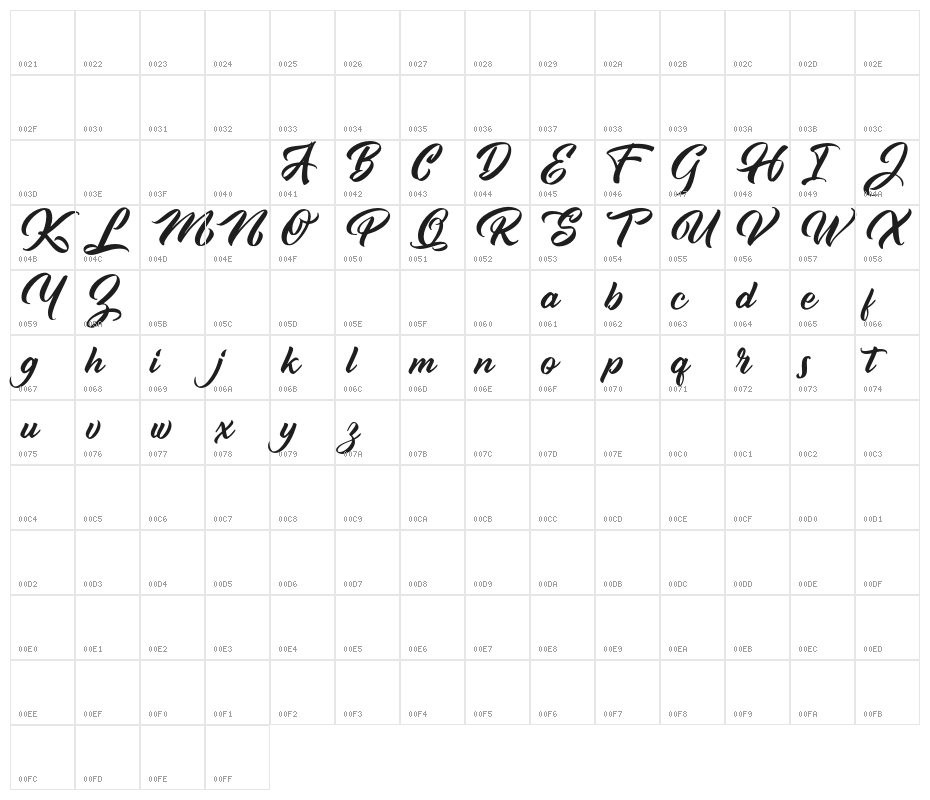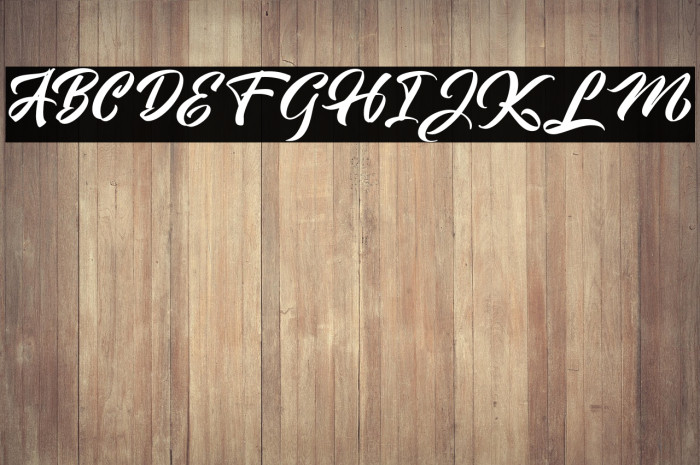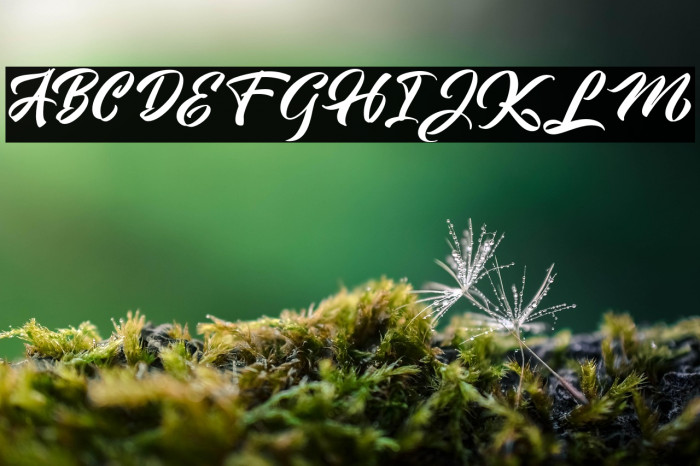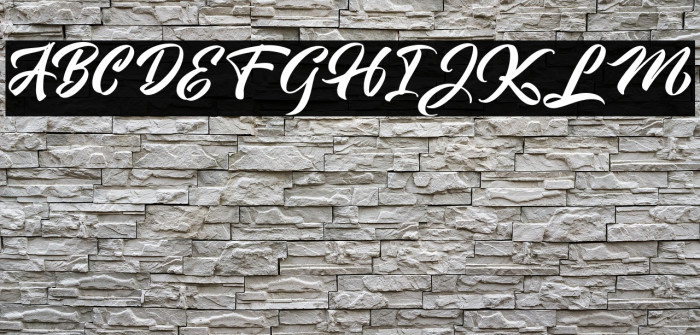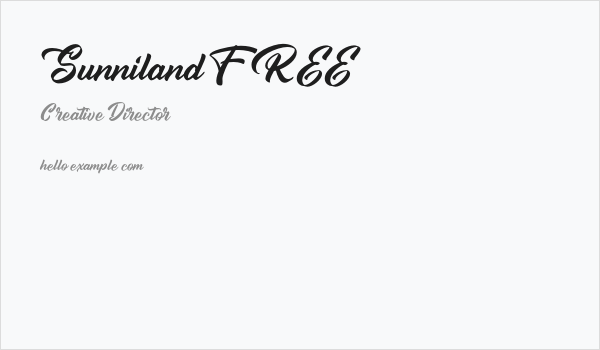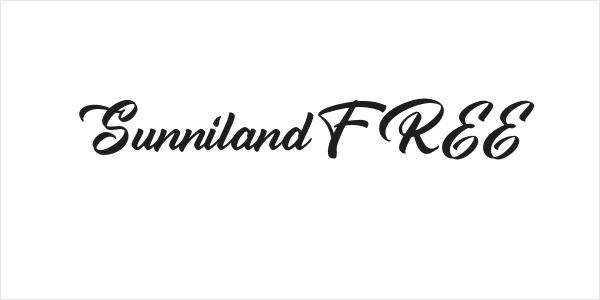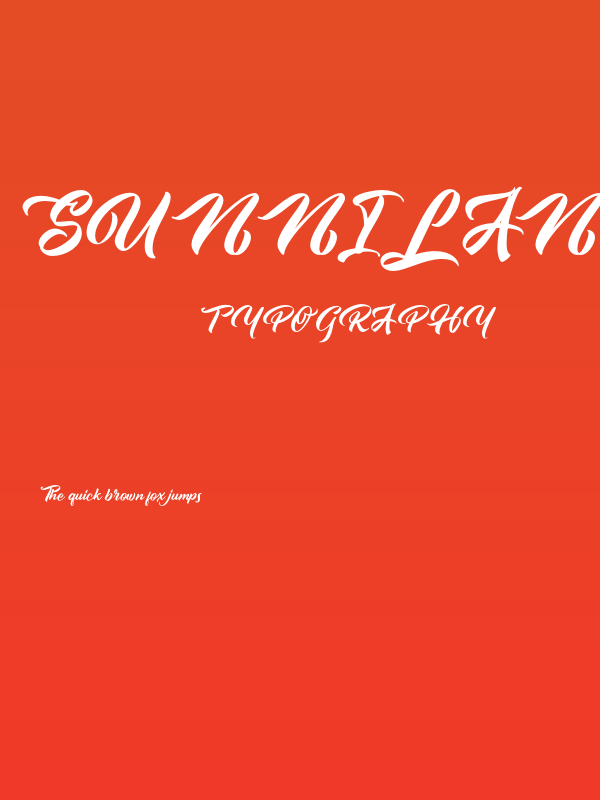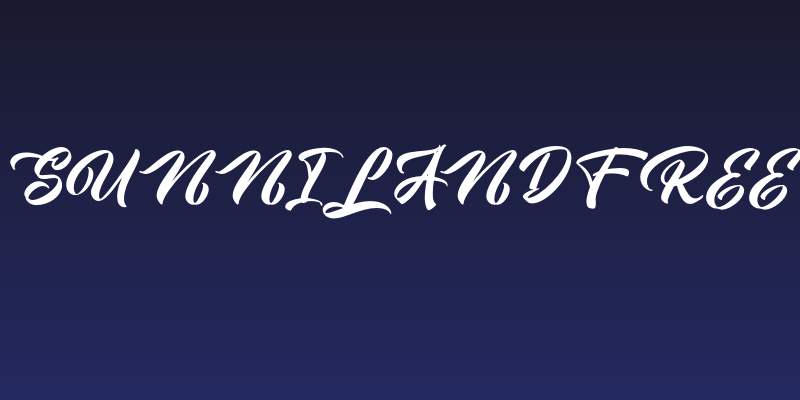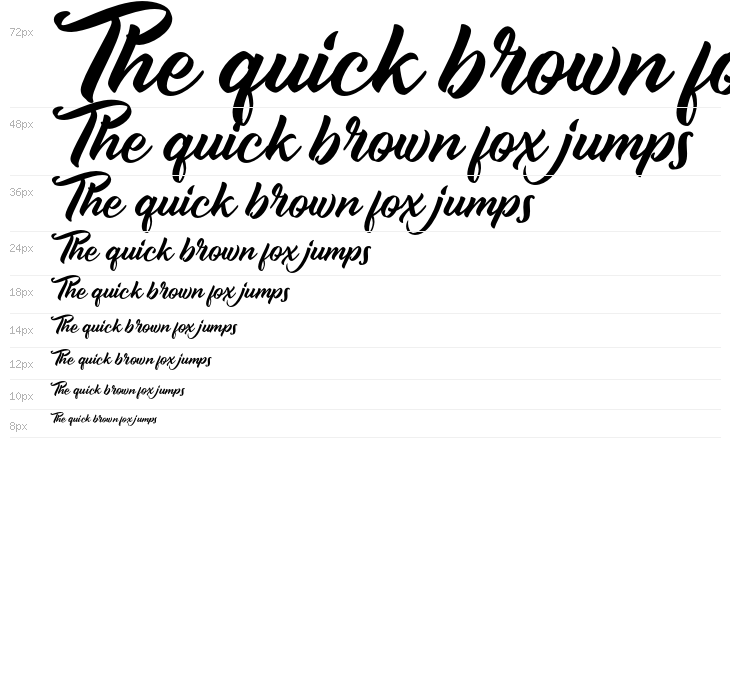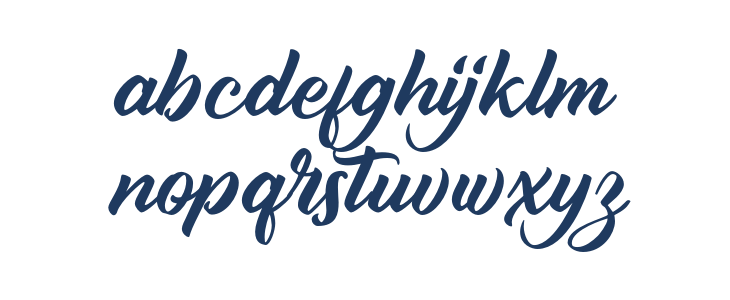
SunnilandFREE Font
SunnilandFREE Description
This font features a dynamic and flowing script style, characterized by its elegant and cursive letterforms. The uppercase letters exhibit a graceful and sophisticated appearance with sweeping curves and flourishes, while the lowercase letters maintain a consistent fluidity that enhances readability. The font's bold weight adds a sense of strength and presence, making it suitable for impactful designs. The characters are well-spaced, providing a balanced and harmonious look. This script style is ideal for projects that require a touch of elegance and personal flair.
| Use Case | Logos, Invitations, Headlines |
| Proposed Projects | Ideal for wedding invitations, branding, greeting cards, and elegant signage. |